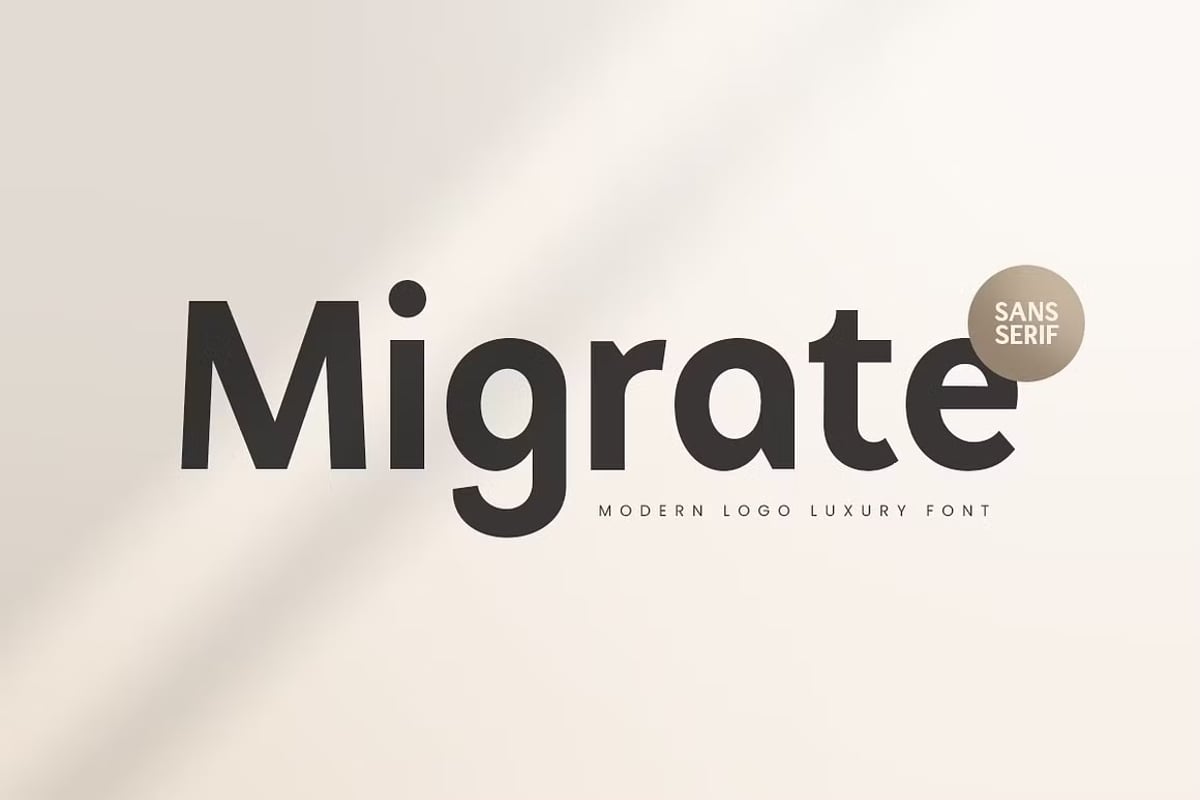
Migrate Modern Luxury Font
Transform your brand with Migrate - a sleek, professional sans serif font designed for modern logos and luxury branding projects. This contemporary typeface delivers the perfect balance of professionalism and uniqueness, making it ideal for logos, branding materials, posters, and headlines. The clean, geometric design adds instant sophistication to any project while maintaining excellent readability across all applications. Migrate's versatile character set provides endless creative possibilitie...